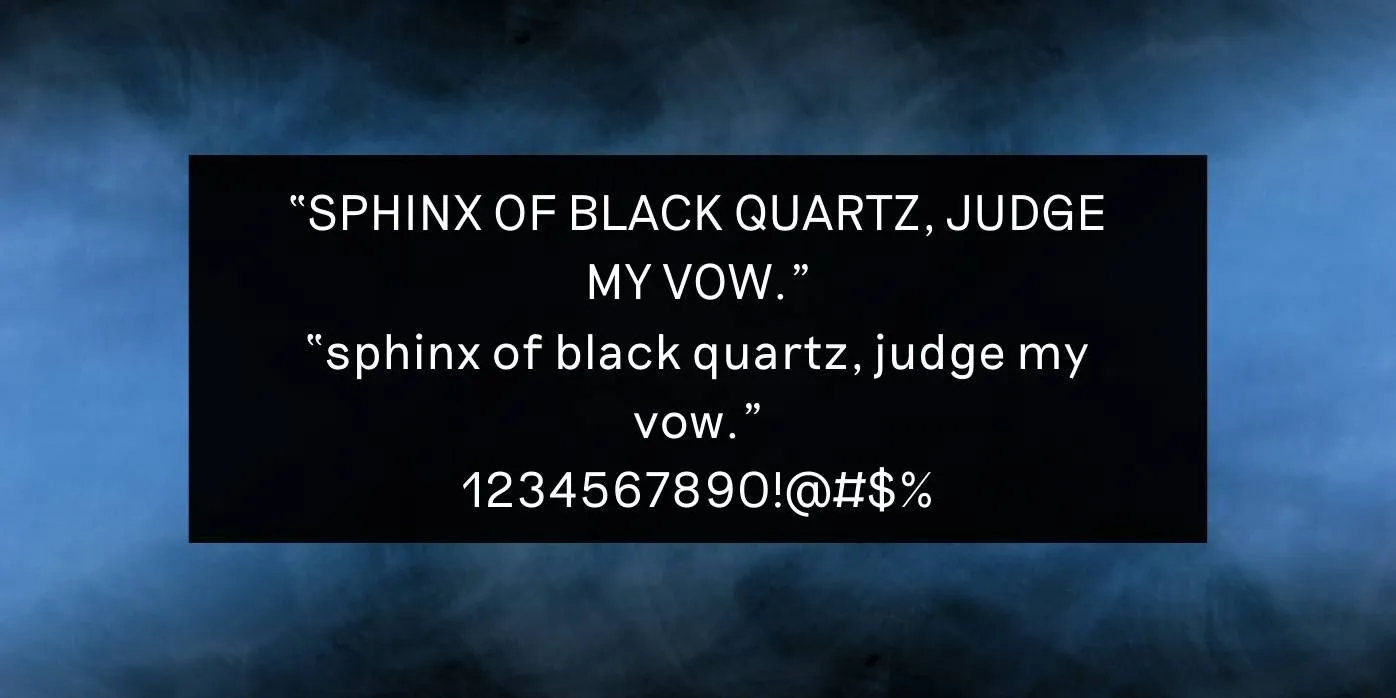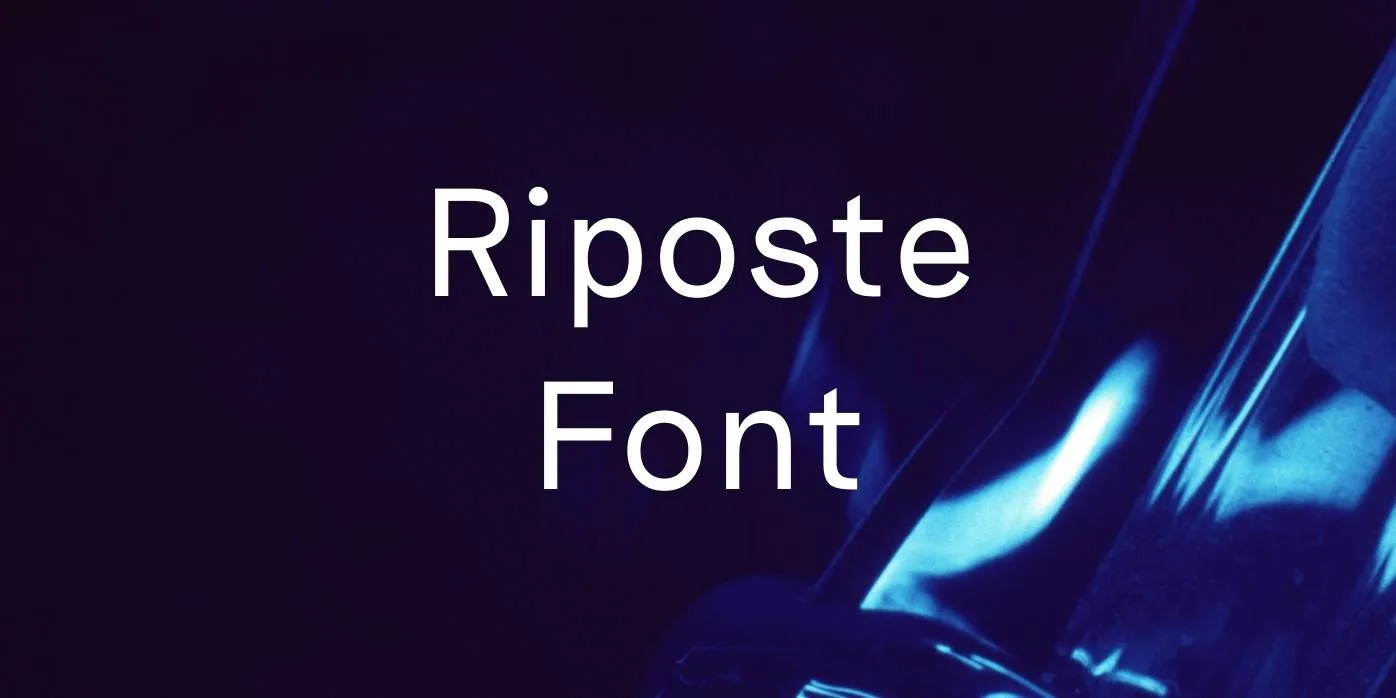
Riposte Font
Today, we present Riposte Font which is very famous and designed by Anton Scholtz. This typeface belongs to the sans serif category of fonts.  It has a geometric shape and is inspired by the forms of early digital fonts. This stylish font was designed with both display and text use in mind. It features a large x-height, wide counters, and a slightly condensed overall width, which makes it highly readable at small sizes.
The font includes a full set of Latin character glyphs, as well as support for Cyrillic languages. It is effective for Adobe and Canva. You can use cera font which has the same style and characters as this one. Riposte Font is available in both regular and bold weights.